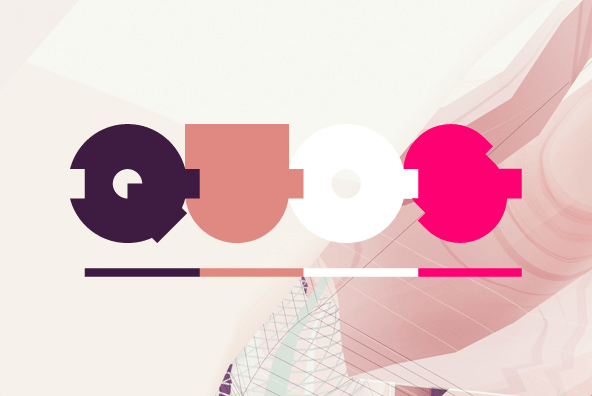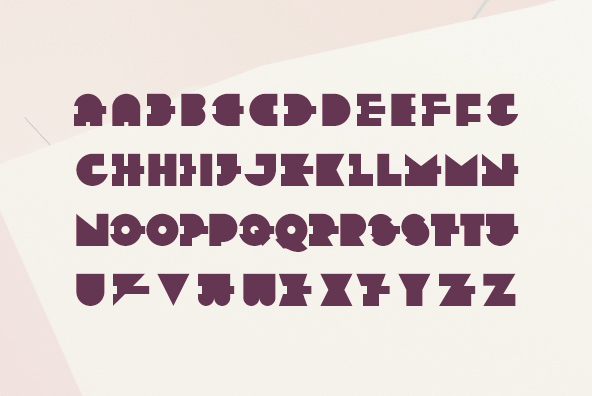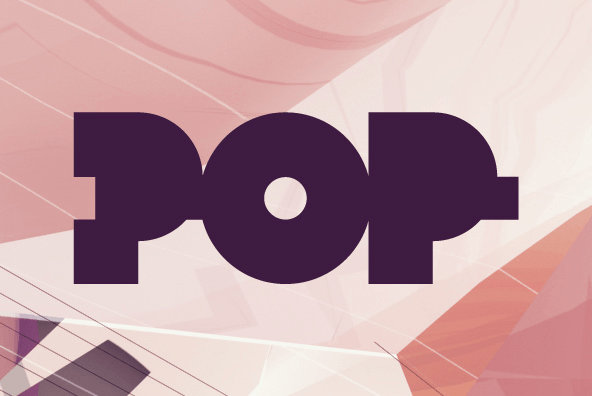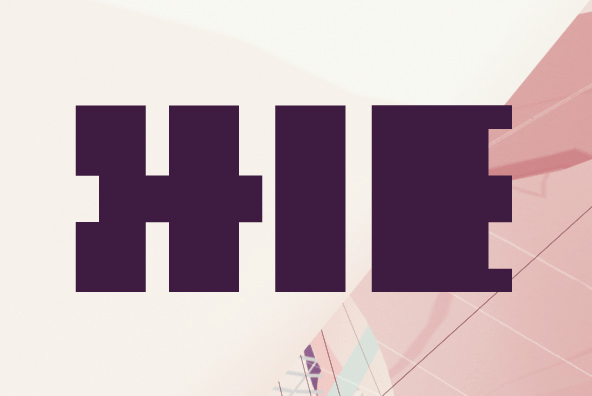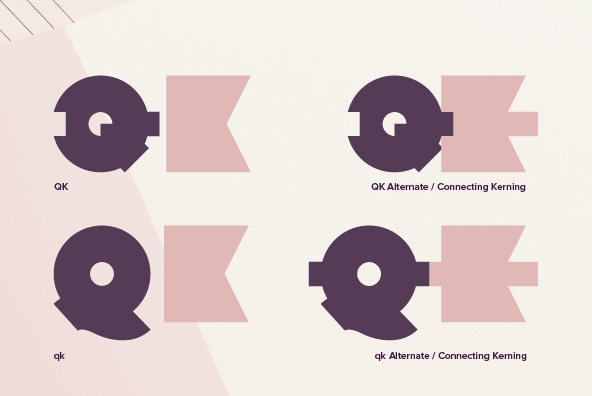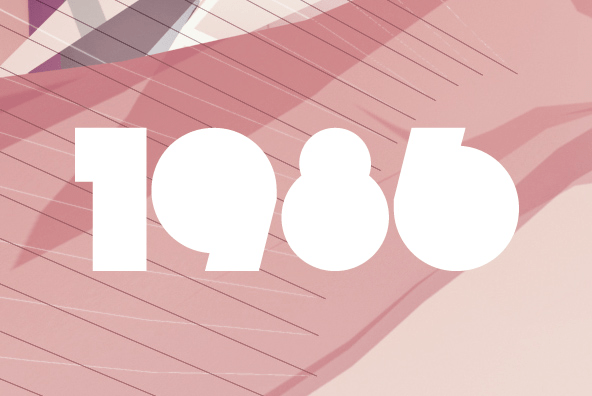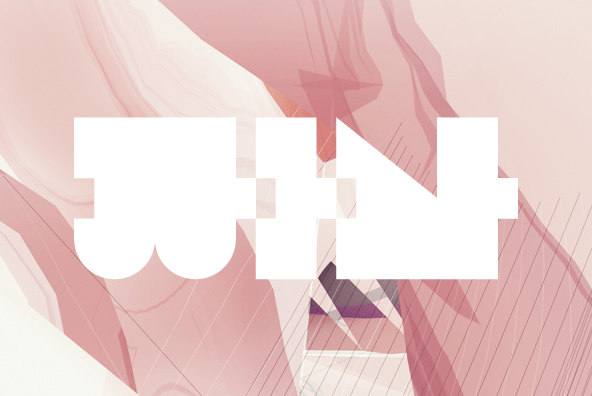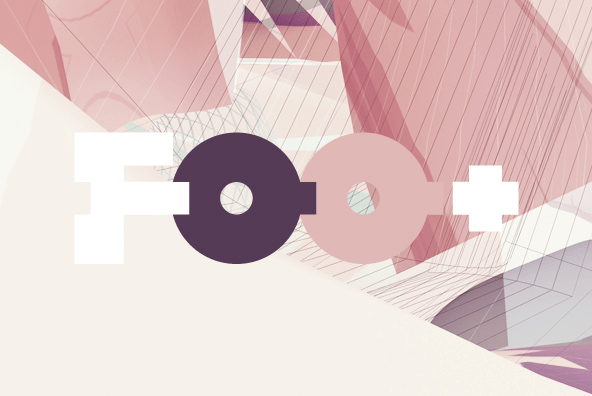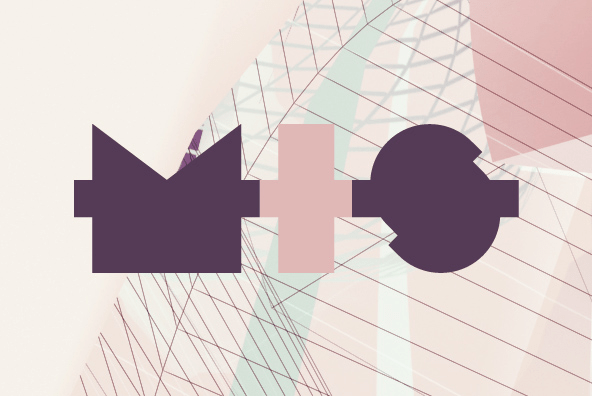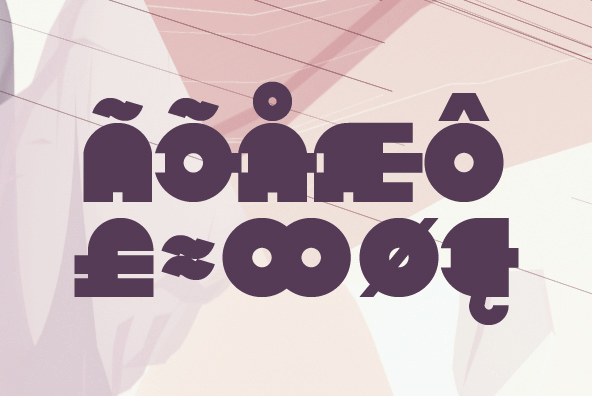
YWFT Poplock
It's time to avoid "the old one two" with this spanking new working version of the classic handset disco masterpiece YWFT Poplock by YouWorkForThem. This is one dancefloor gem with kerning that would make Afrika Bambaataa slip into a Time Zone, with most items interlocking into super Electric Boogaloo pairs and Crazy Legs Opentype Stylistic Alternates in the setup. Retro and funky, with Wondertwin powers activated, yet cooler than Bootsy Collins in a liquid nitrogen jacuzzi, YWFT Poplock is perfect for poster, headline, display, and music-centric designs. All that Times New Roman pressure got you down? Slip on your skates and come on down to Fifty Four, cuz it's time to Poplock, y'all. Dig it!